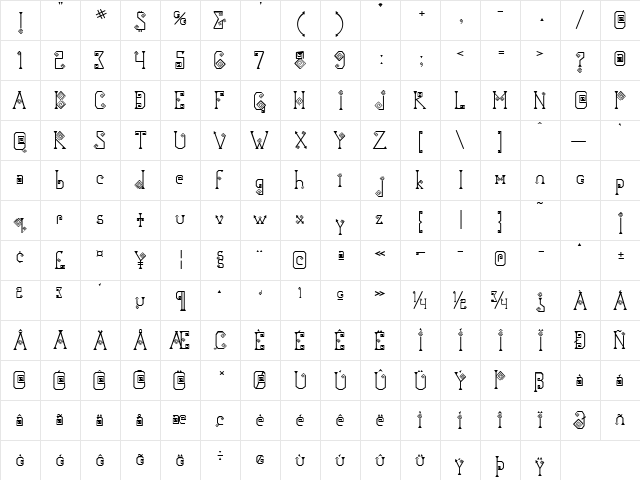
Havisham Regular Font Preview
Havisham Regular
Design Context for Havisham Typeface
Havisham is a composed and adaptable typeface that performs quietly and consistently across a wide range of design contexts.